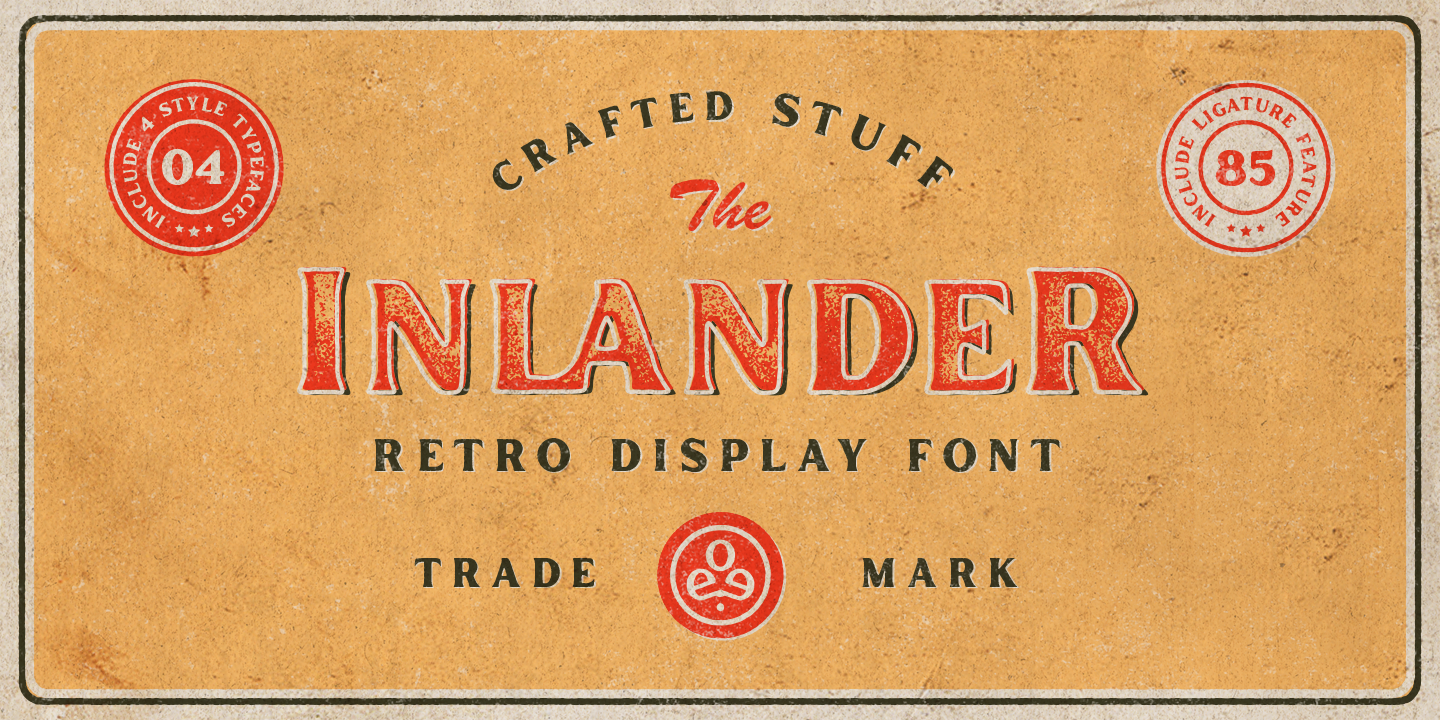
Inlander Font is perfect for outdoor adventure branding, rural tourism marketing, mountain lodge signage, hiking equipment packaging, countryside retreat designs, inland waterway tourism, regional travel guides, outdoor gear catalogs, wilderness camp materials, and heartland business communications that require authentic rural character and adventurous spirit.
This font is exciting because it captures the rugged independence and authentic character of inland territories with sturdy letterforms that embody the self-reliant spirit and natural strength found in rural communities and wilderness regions far from coastal influences. Inlander Font features robust construction and grounded proportions that reflect the honest values and enduring resilience essential to inland living and outdoor adventure pursuits.
Inlander Font family includes Regular, Bold, Light, Rugged, Adventure, Wilderness, Heartland, and Explorer versions, plus outdoor symbols, adventure icons, nature elements, and regional ornaments that enhance the authentic inland aesthetic and provide comprehensive design solutions for rural and outdoor recreation applications.
For authentic rural and outdoor adventure design projects, Inlander Font Free Download delivers unmatched regional character and adventurous appeal. The font's sturdy letterforms and inland spirit make it perfect for outdoor outfitters, rural tourism, and adventure brands seeking to communicate authenticity, self-reliance, and connection to inland territories. Its rugged design appeals to outdoor enthusiasts and rural communities who value independence and natural experiences. The character set includes outdoor symbols and regional markers that reflect inland adventure standards. Professional designers appreciate its ability to convey both authenticity and adventure while maintaining excellent readability across outdoor marketing, rural branding, and adventure tourism materials, making it essential for brands that want to capture the independent spirit of inland regions and communicate the rugged authenticity and adventurous freedom that defines life in the heartland and wilderness territories.